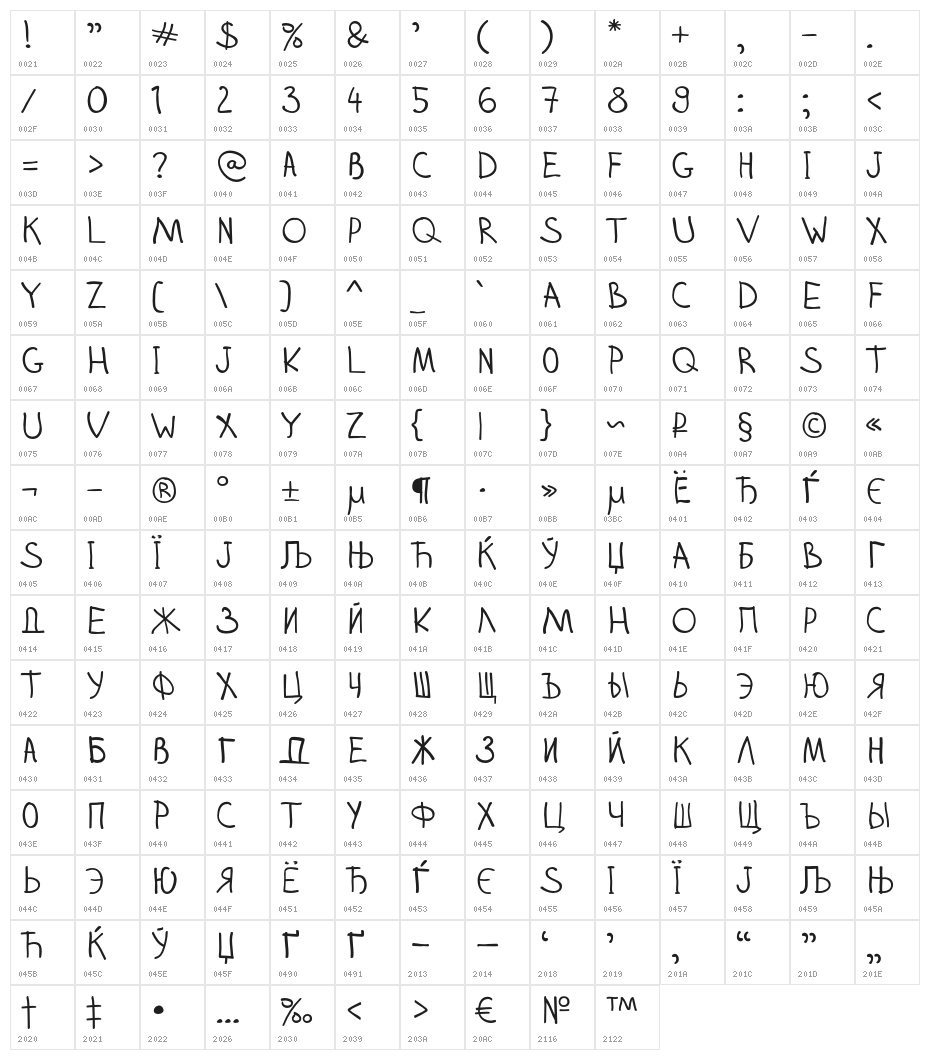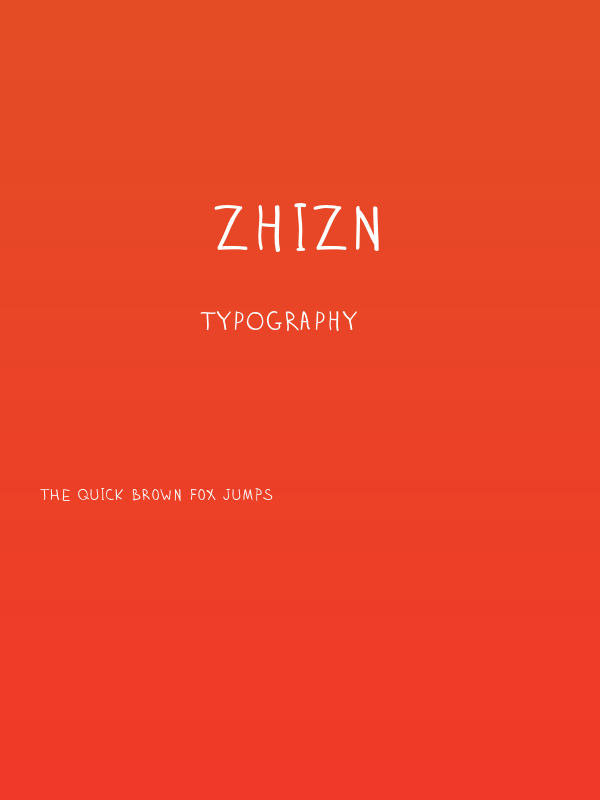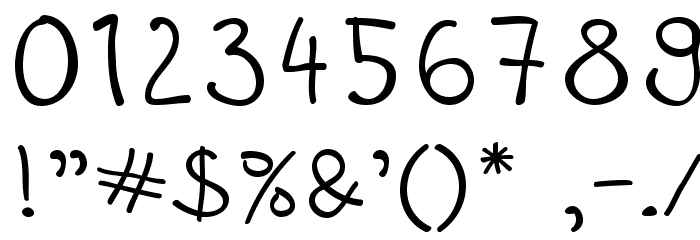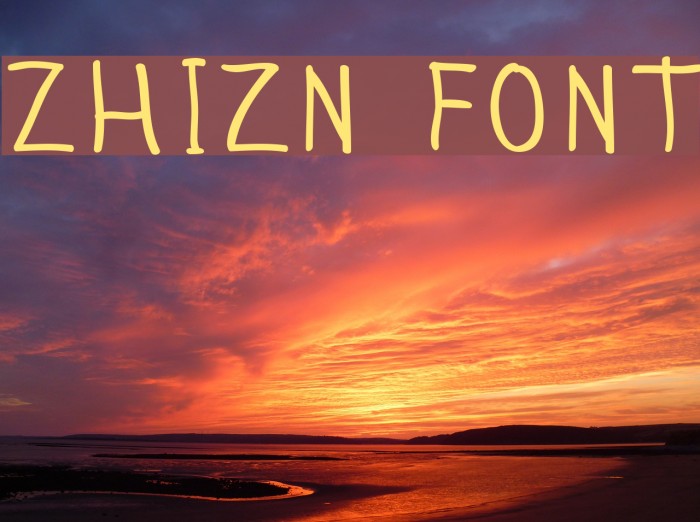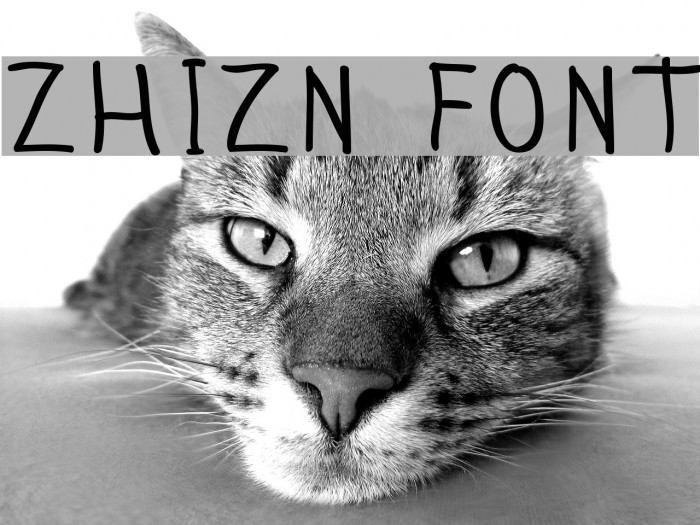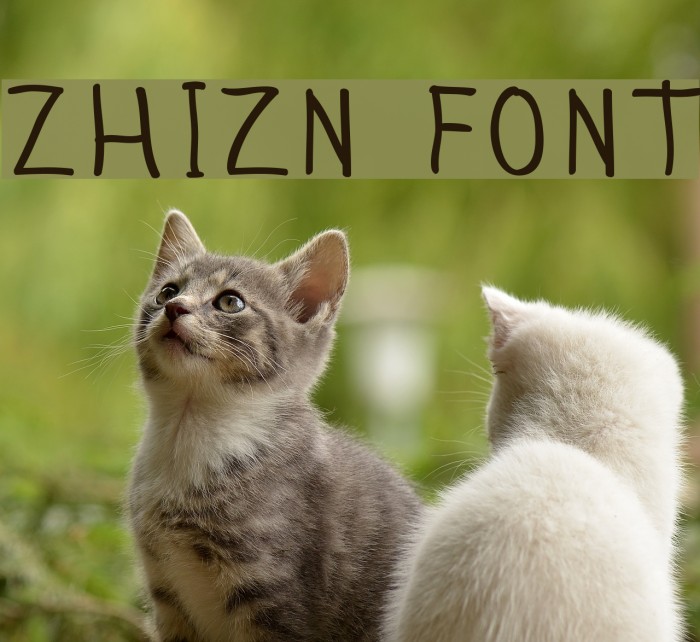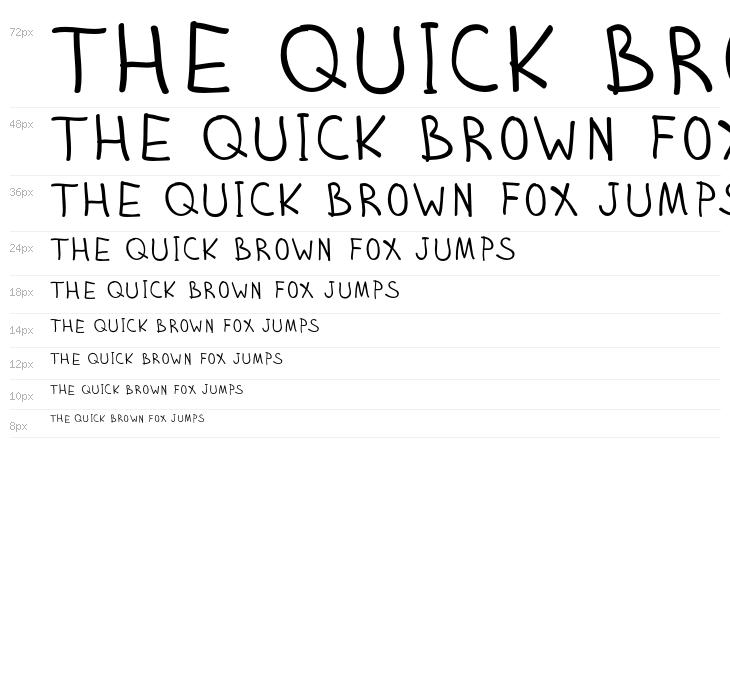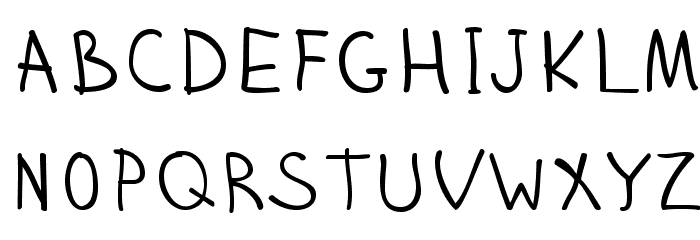
Zhizn Font
Zhizn Description
This font features a playful and casual handwritten style, characterized by its irregular strokes and slightly uneven baseline. The letters have a whimsical quality, with varying stroke widths that add to its informal and friendly appearance. The uppercase and lowercase letters maintain a consistent style, while the numerals and special characters complement the overall look. The font's organic feel makes it suitable for projects that require a personal touch or a relaxed vibe.
| Proposed Projects | Ideal for greeting cards, children's books, casual branding, and social media graphics. |